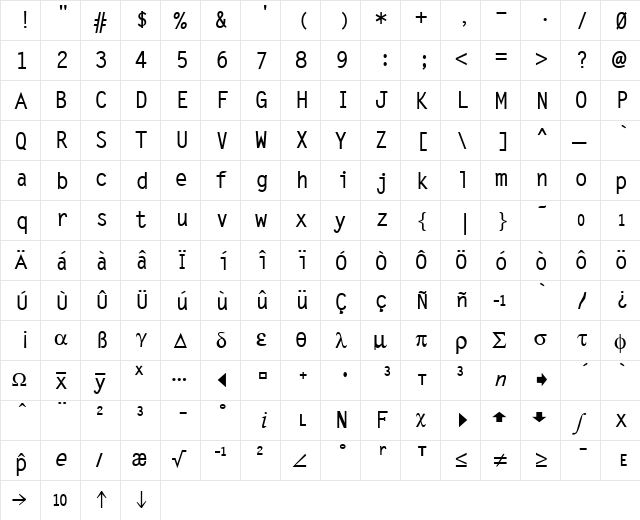
Ti83pc Normal
Ti83pc takes a measured approach to typography — its balanced proportions and neutral character make it a reliable workhorse for both digital and print work.